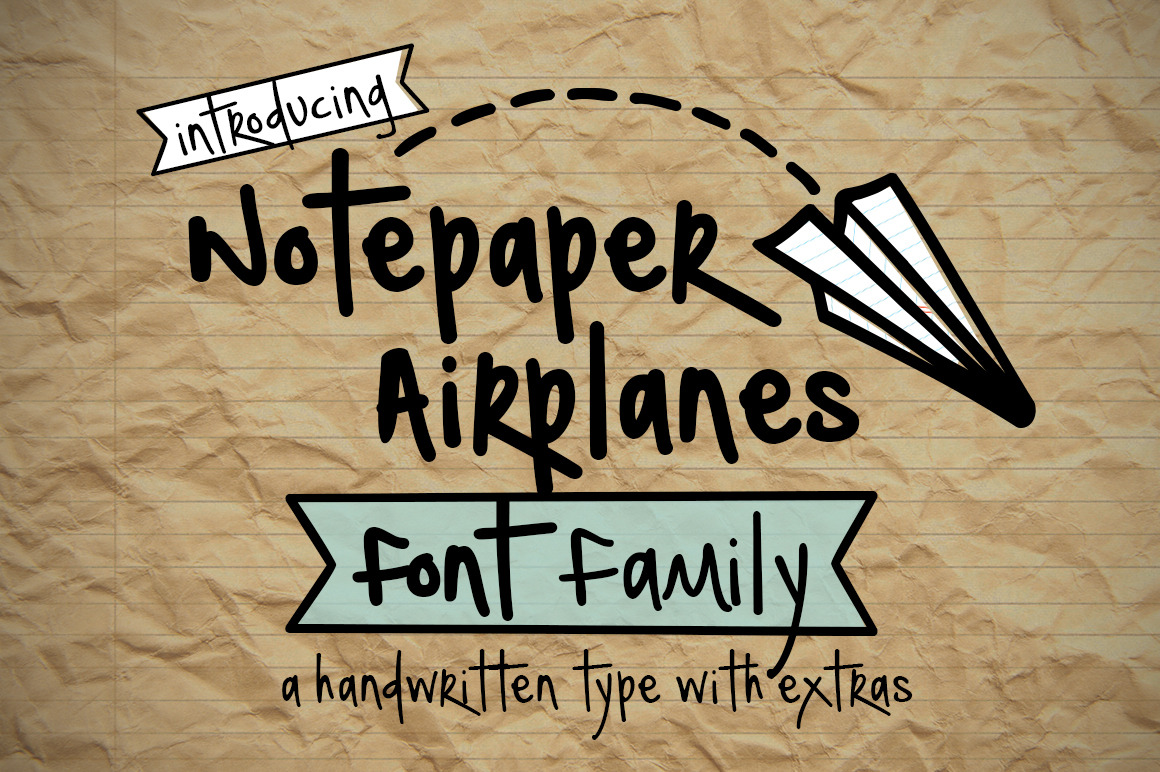
Notepaper Airplanes Font Family
Cool handwritten font in two weights- regular and light. Great for passing notes! Comes with a fun extras font with arrows, icons, banners, and more!